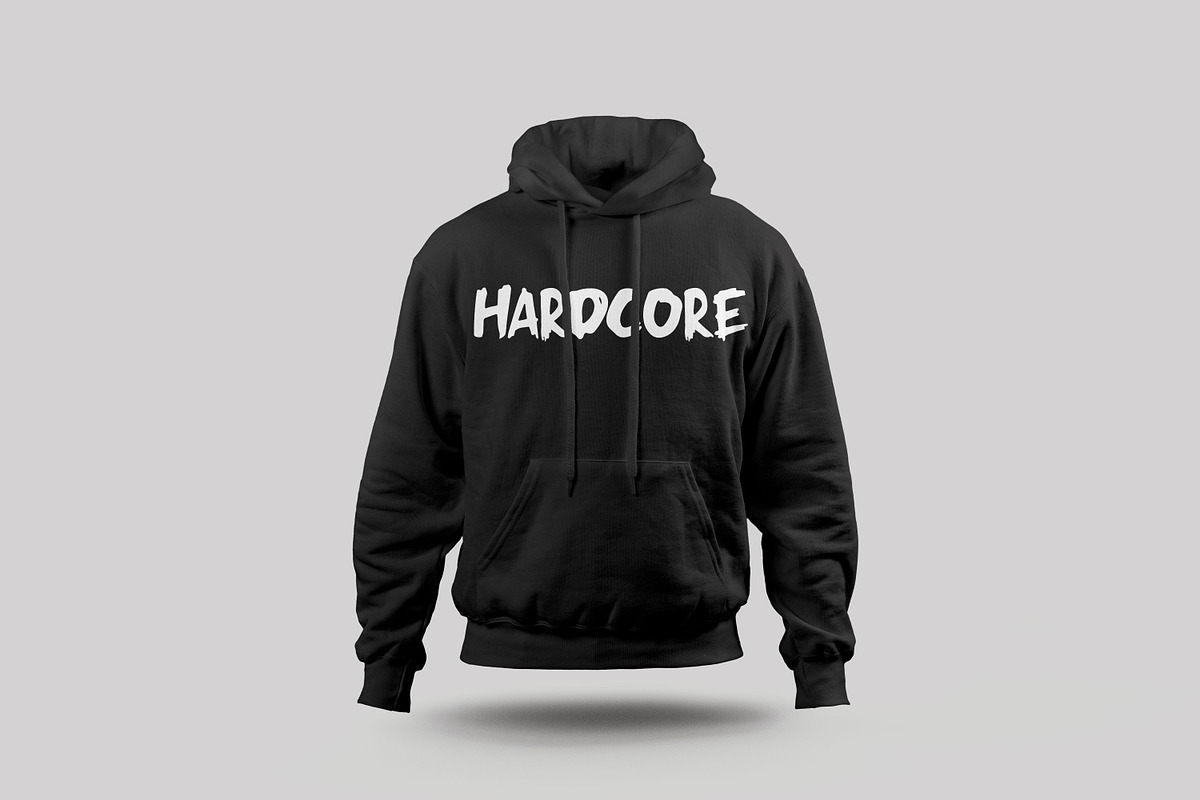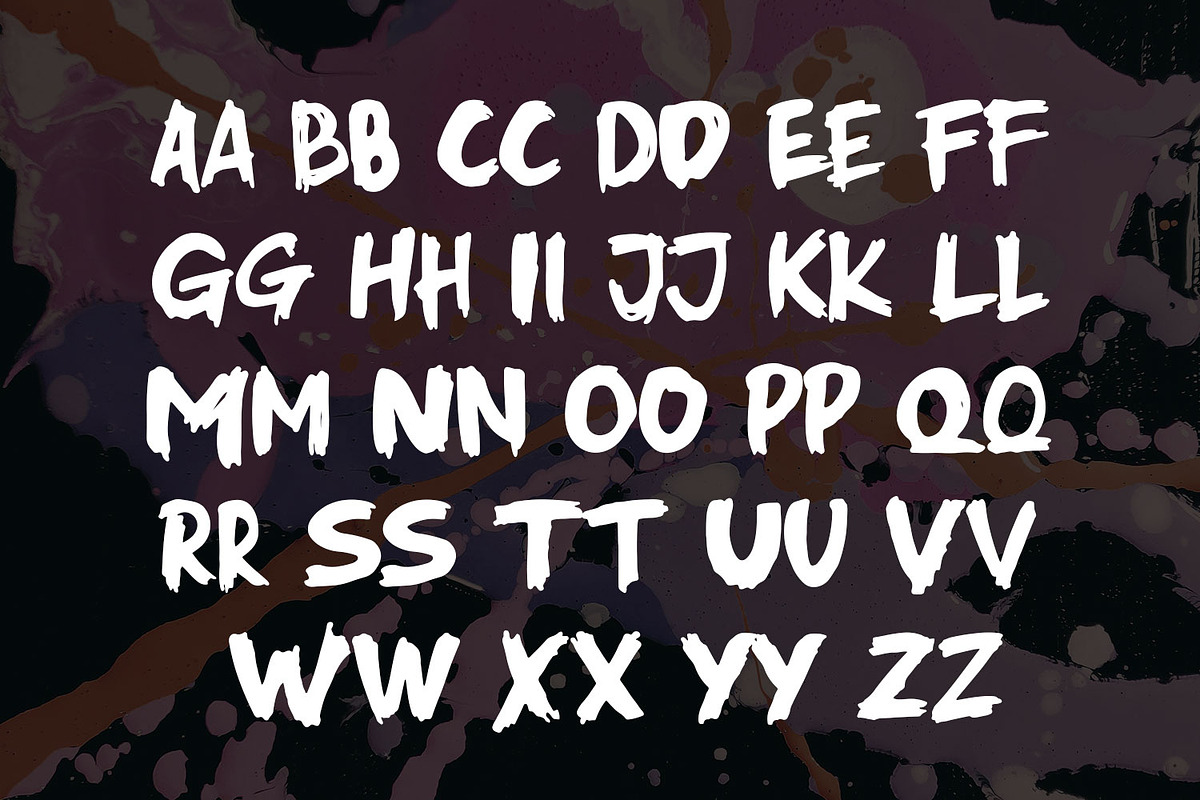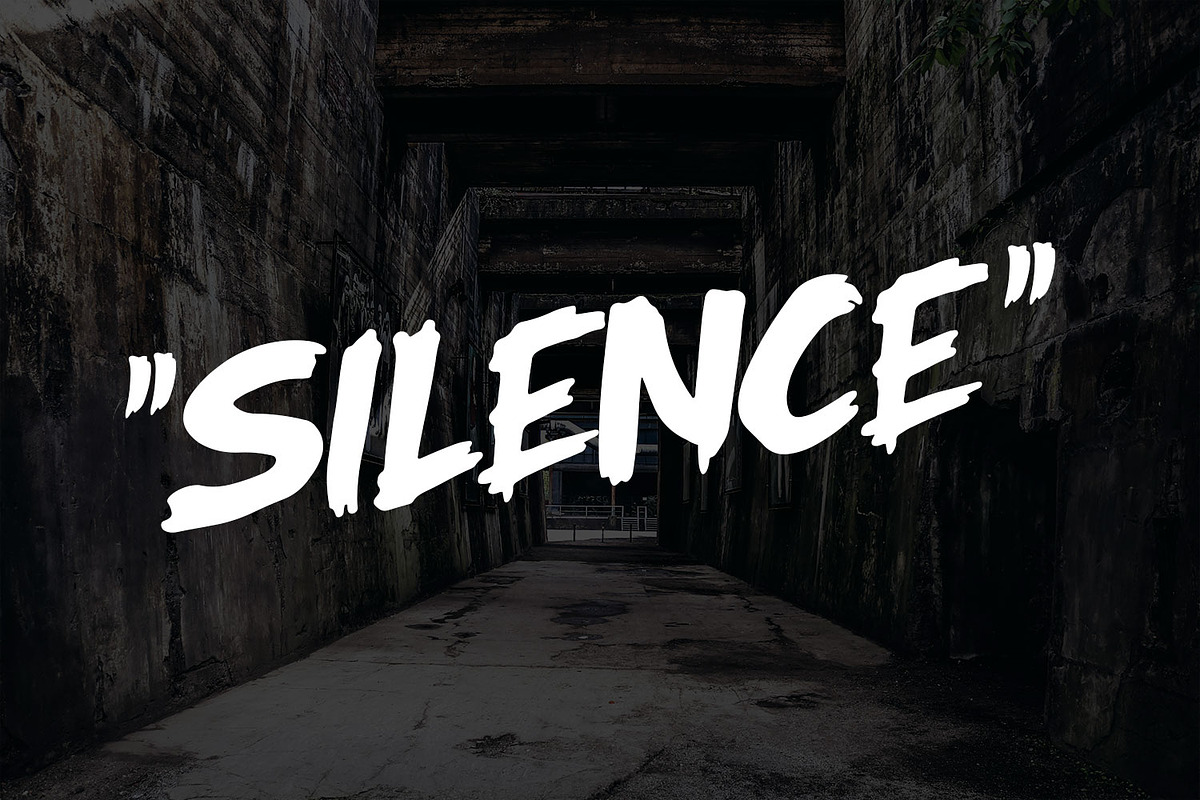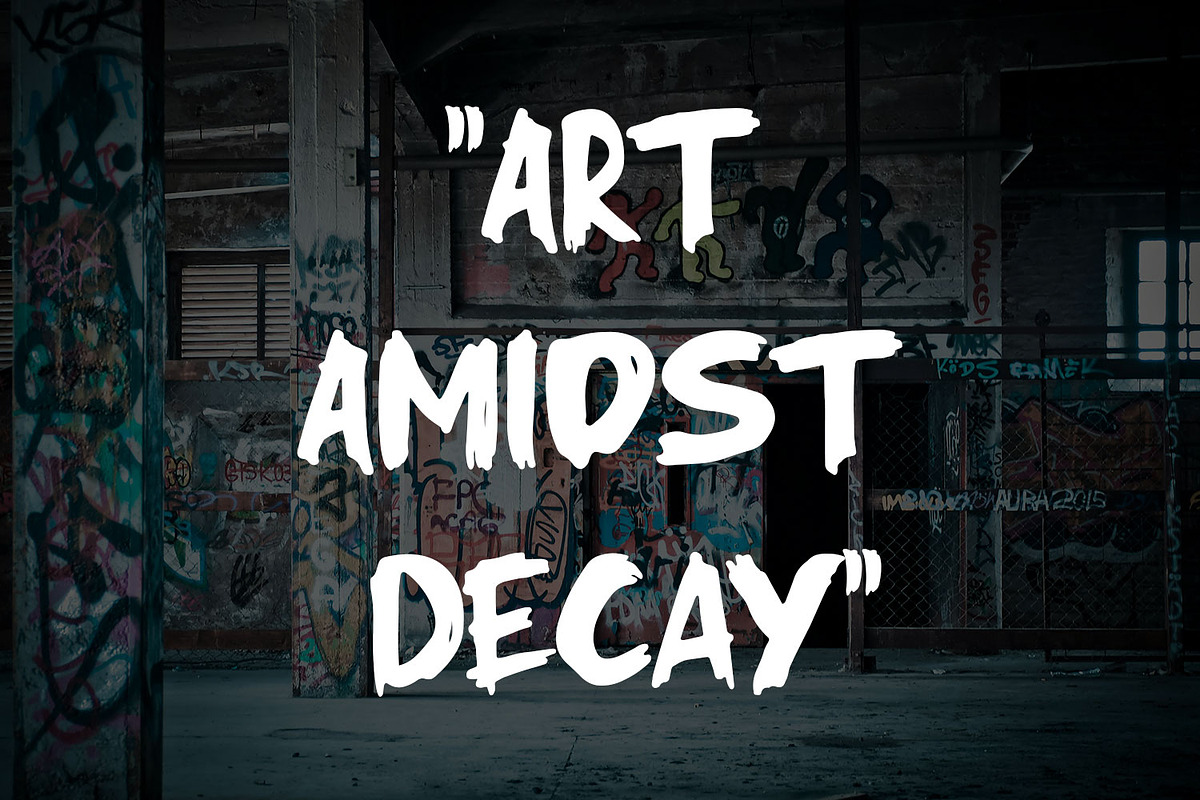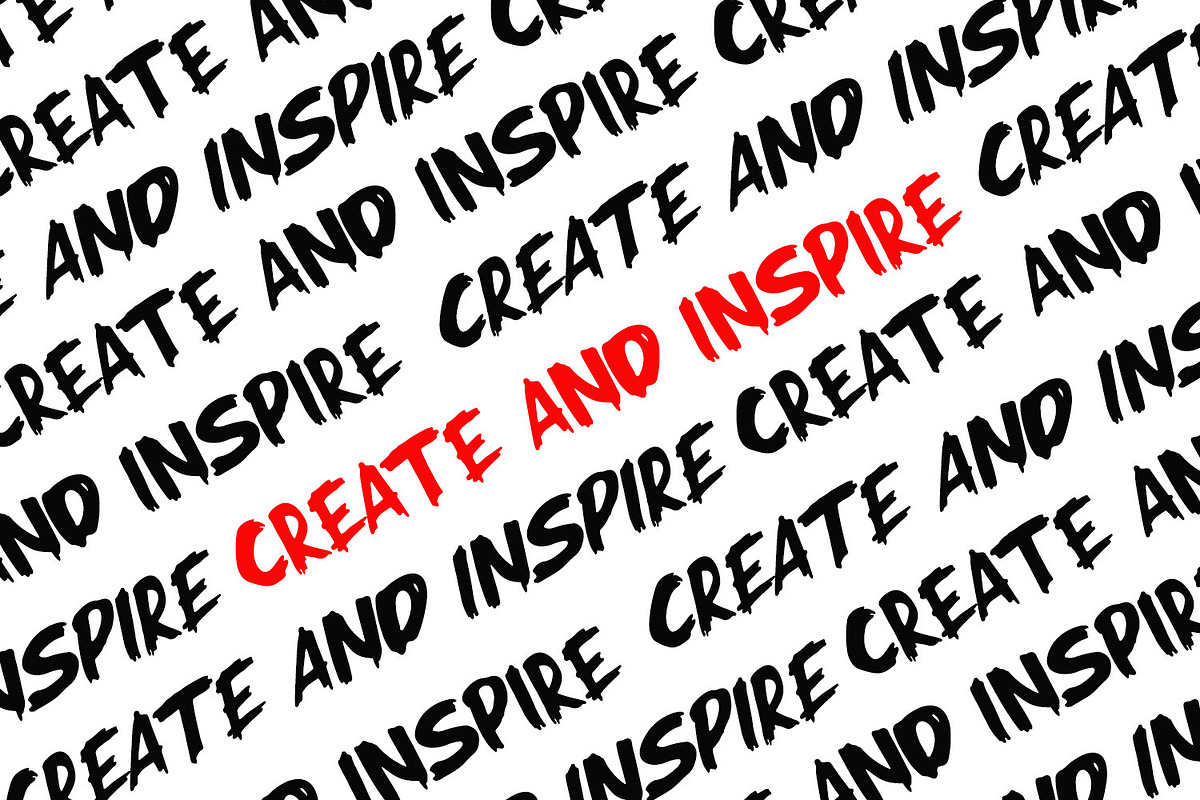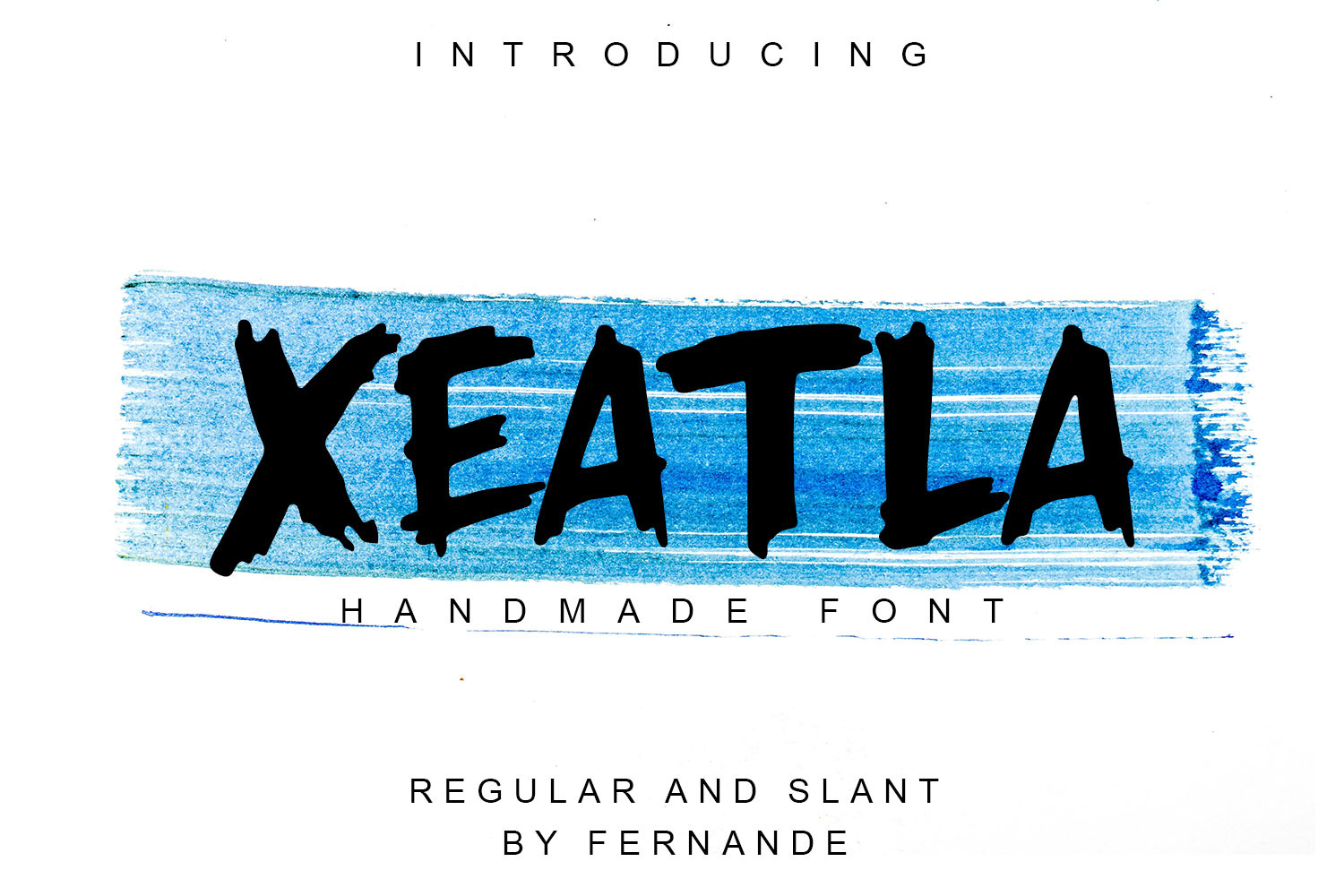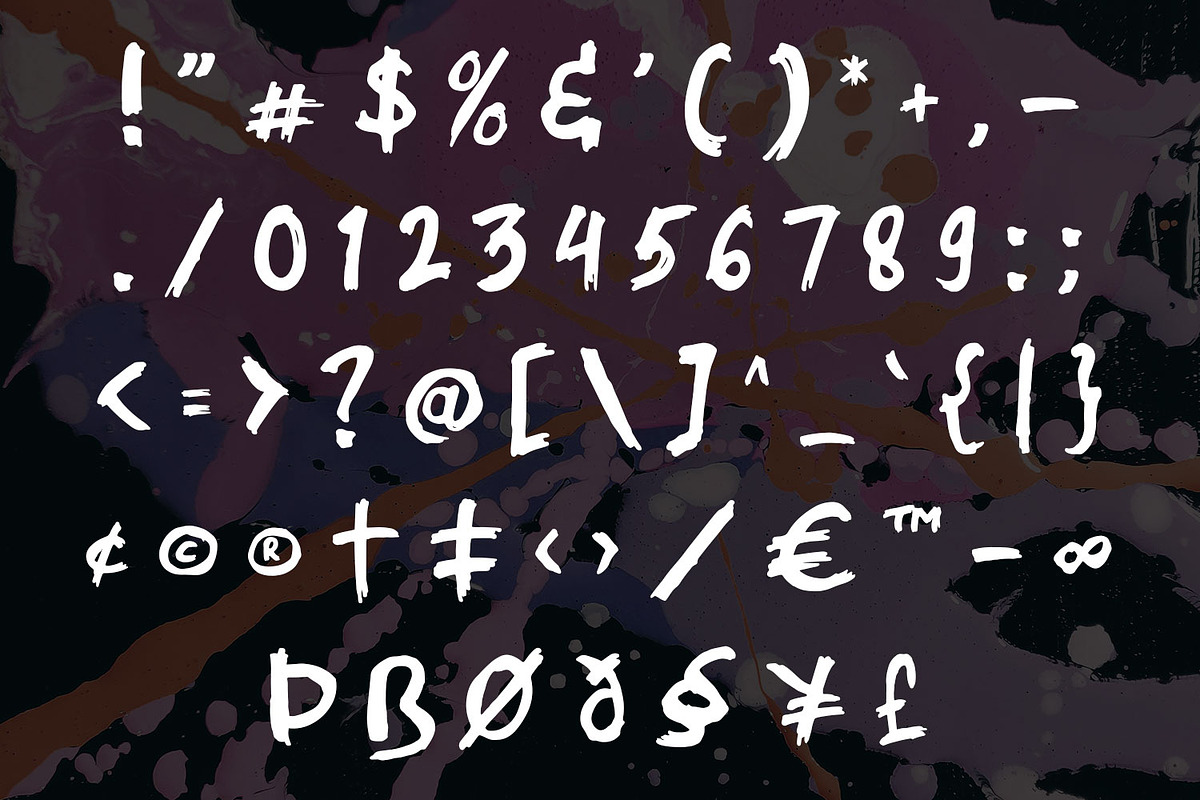
Xeatla Handmade Font
Introducing the dynamic Xeatla, a brilliant handmade font teeming with distinction. Its assertive, robust characters mirror the raw strokes of a powerful, expressive hand, sparking an inimitable, conceptually artistic vibe. The unique visual persona of Xeatla exudes boldness, brimming with vibrancy perfect for designs that demand an experimental and artistic essence. The font encapsulates two styles: regular and slant, making it a versatile choice for various eye-catching design projects. Ideal for music posters, album covers or any creative endeavor, Xeatla is designed to captivate and inspire.